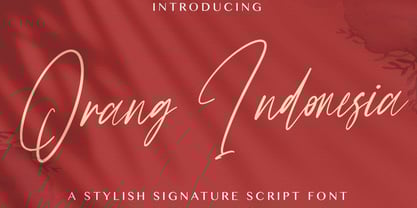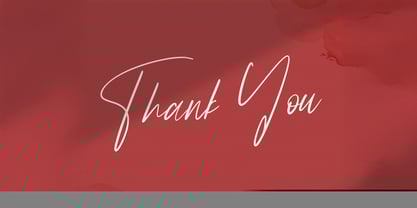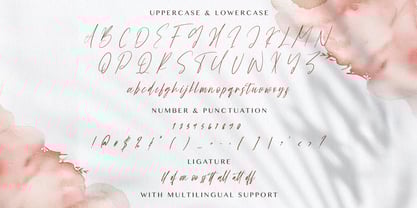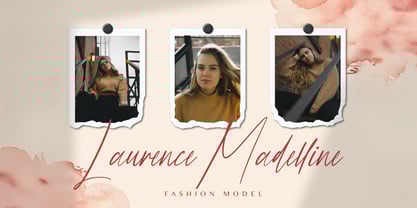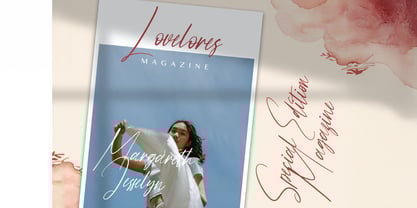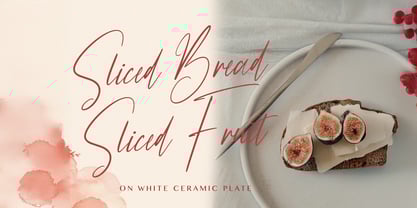
Orang Indonesia
by Stringlabs Creative Studio
The Orang Indonesia Font Family was designed by Virgiawan Listanto and published by Stringlabs Creative Studio. Orang Indonesia contains 1 styles.
Capture a genuine, human touch with Orang Indonesia, a versatile handwritten font. Its natural irregularities and smooth connections evoke the essence of authentic penmanship, ideal for adding a heartfelt and approachable vibe to your creative work.